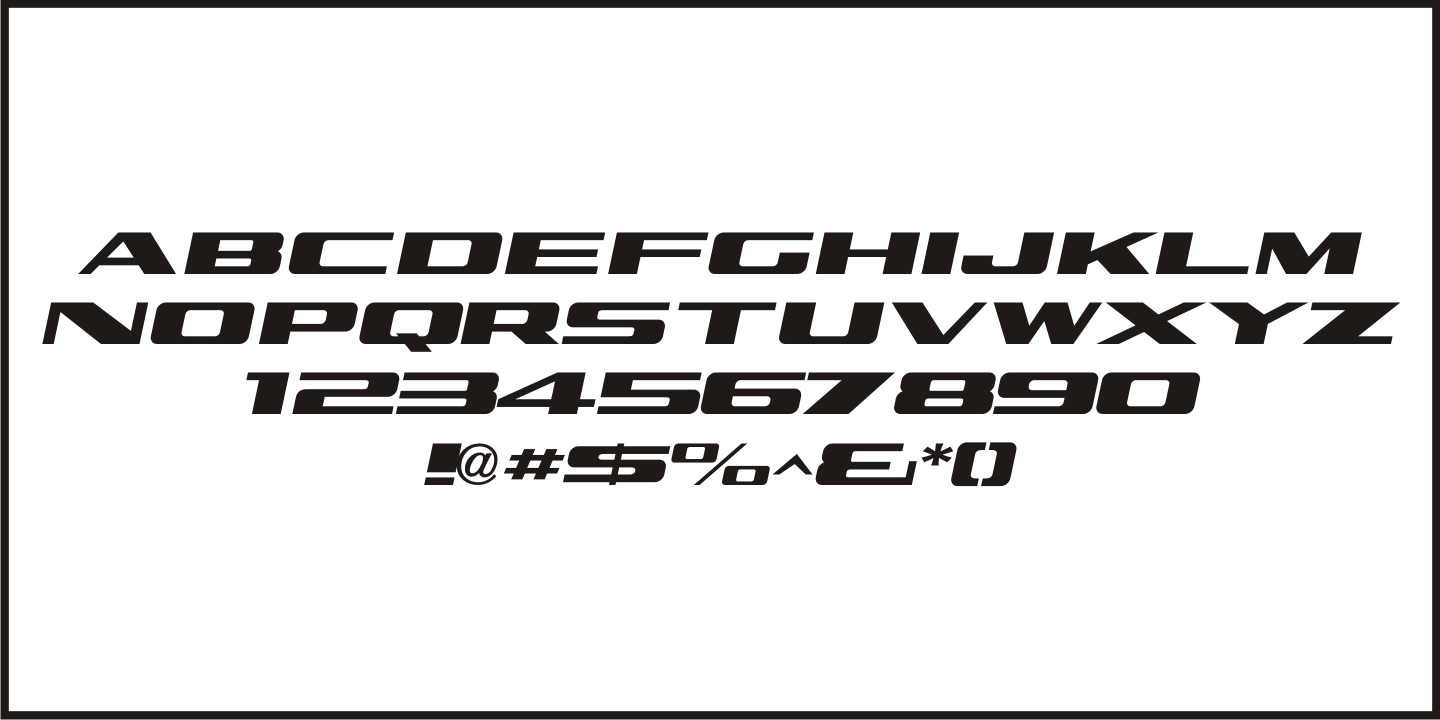
The Personalization Font is ideal for custom branding services, personalized gift companies, bespoke design agencies, individual coaching businesses, tailored marketing solutions, custom product packaging, unique wedding stationery, exclusive membership programs, and specialized service providers that require distinctive typography emphasizing individual customization and personal attention.
What makes the Personalization Font so exciting is its remarkable ability to embody the essence of individual uniqueness and custom-tailored experiences that speak directly to each person's distinct needs, preferences, and personal style. This exceptional typeface represents the pinnacle of customized design thinking, featuring adaptable letterforms with variable characteristics and personalized styling options that create an immediate sense of exclusivity, individual attention, and bespoke quality. The font's customizable nature and personal appeal make it the perfect choice for brands and projects that prioritize individual customer experiences, personalized service delivery, and the creation of unique solutions that reflect each client's specific requirements and personal vision.
The Personalization Font family typically includes multiple weight variations, customizable alternates, and personalization elements that provide designers with extensive tools for creating truly individualized branding systems and personalized visual communications that adapt to specific client needs and preferences.
Custom service providers and personalization specialists consistently choose Personalization Font Free Download for its unmatched ability to convey individual attention and bespoke service quality. This distinctive typeface represents the perfect fusion of professional expertise and personal care, offering service providers a powerful tool for building meaningful relationships with clients who demand customized solutions and individual recognition. Whether you're developing branding for custom design services, creating materials for personalized coaching programs, designing bespoke product packaging, or crafting individualized marketing campaigns, this font delivers the exclusivity and personal touch that customization communications require.
The thoughtfully crafted letterforms of the Personalization Font showcase adaptable proportions and customizable styling details that ensure flexibility while maintaining professional quality across various personalization applications. The font's individual character and bespoke appearance create immediate associations with exclusivity, personal attention, and the premium quality that discerning clients expect from customized services.
Custom design specialists and personalization marketers appreciate the font's comprehensive adaptability and individual-focused design principles, which enable the creation of typography that feels uniquely tailored to each client while maintaining the professional standards essential for building trust in premium customization markets.
For organizations seeking to establish authentic connections with clients who value individualized attention and communicate genuine commitment to personalized service through their visual identity, the Personalization Font provides an exceptional typography solution. Its customization-focused foundation and proven individual appeal make it particularly suitable for bespoke service providers, personal consultants, custom manufacturers, and luxury brands that prioritize individual client relationships and personalized experiences.
The font's optimization for both traditional custom print materials and modern personalized digital platforms ensures consistent individualized impact across all customization communication channels, while its adaptable aesthetic provides enduring value for personalization-focused brand systems requiring typography that authentically represents the growing demand for individual attention and customized solutions in today's increasingly personalized marketplace.